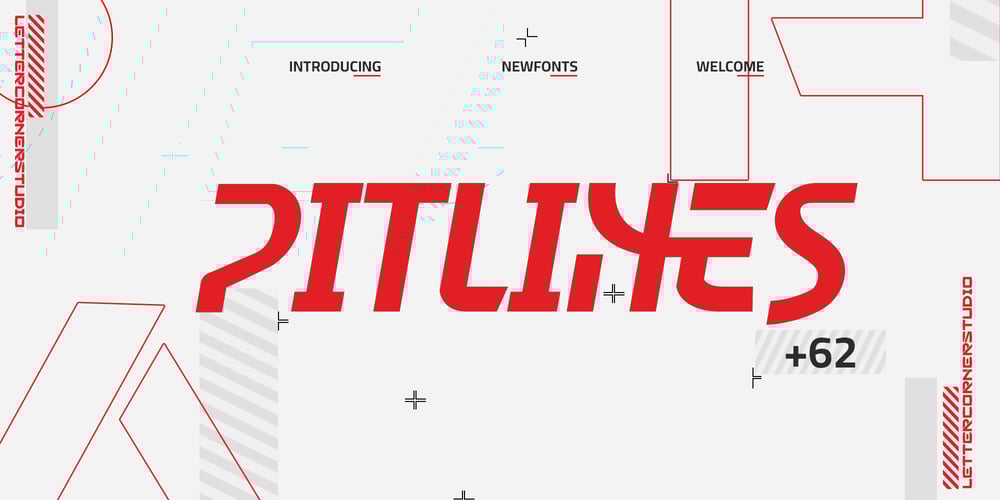
Pitlines
Pitlines font
Pitlines Font Family was designed by Muhammad Afif Ersya and published by Mevstory Studio. Pitlines contains 2 styles and family package options. Pitlines is a display fonts collection.Pitlineswill perfect for many project: fashion, magazines, logo, branding, photography, quotes, blog header, poster, advertisements, etc. Files Includes: Pitliness Regular.otf Pitlines Italic.otf What’s Included? Uppercase & alternate uppercase letters, numbers, punctuation Multilingual support